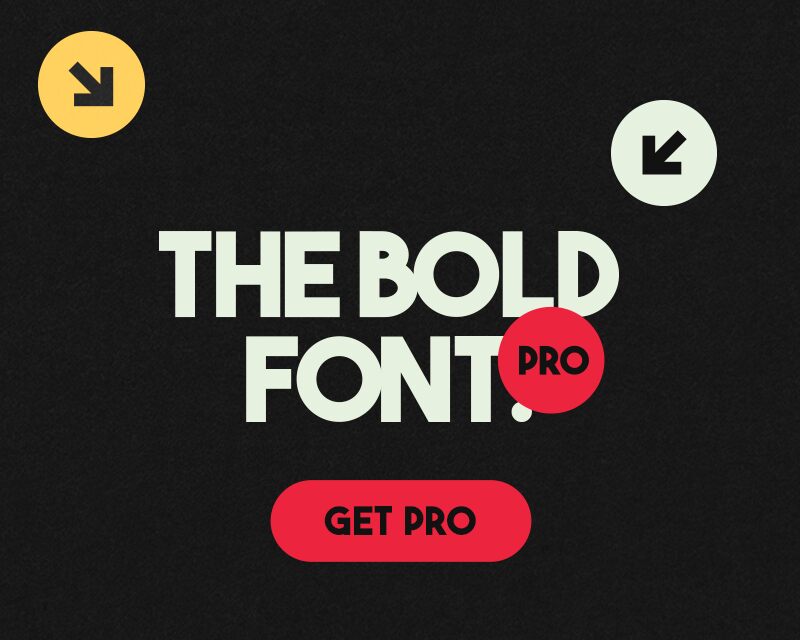
THE BOLD FONT FREE VERSION
The Bold font, a free sans serif font designed by Sven Pels, attests to its name with its assertive presence. Modern and extravagant in nature, the geometric letters are clean and stylish for a long-lasting impression. The key focus here is on branding where the audience receives an exceptional depiction of each letter before they move onto the next.
Use this typeface for logos, posters, headlines printed on newspapers or displayed online via blogs or web design projects. Make it part of branding designs for all kinds of purposes (business cards and stationery) or add it to packaging where you can promote your products compelled by their labels.